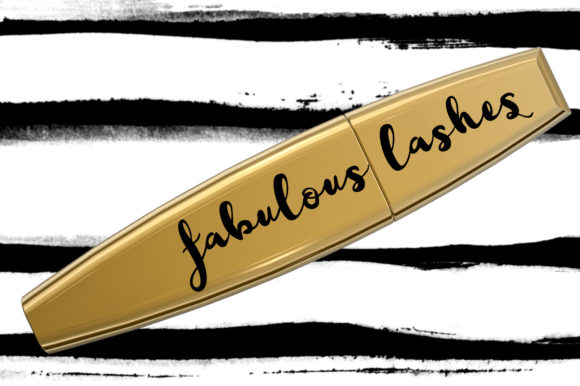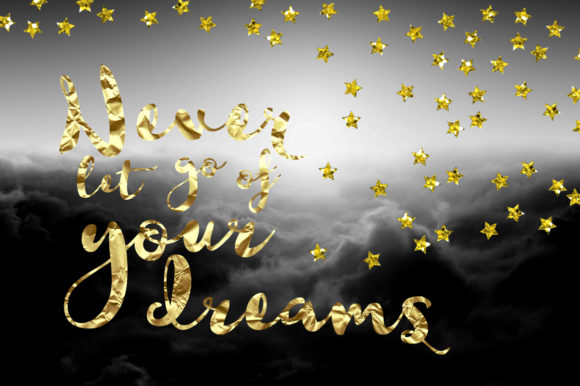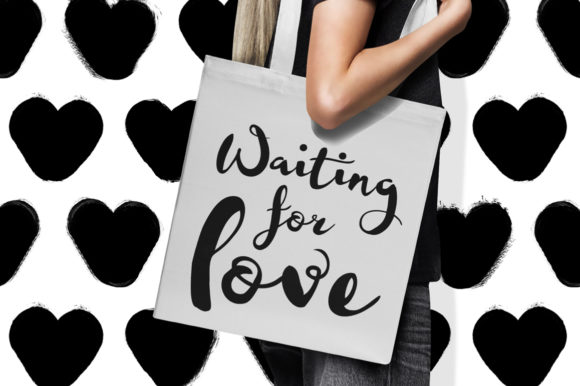
HomeScript FontsJoella Font Script Fonts Joella Font FacebookXPinterestWhatsApp Joella Font Poster 2 Joella Font Poster 3 Joella Font Poster 4 About Joella Font Joella is a bold, charming and sweet script with a unique charm. DOWNLOAD NOW People also explored Storyteller Font School Holidays Font Good Sleep Font Benedicta Font Feris Script Respalo Font Monogram Digitech Font Emelynd Font Wildflowers Font 320 0 TagsJoella Font Previous articlePink Gladiolus FontNext articleCaitlin Script Font LEAVE A REPLY Cancel reply Comment: Please enter your comment! Name:* Please enter your name here Email:* You have entered an incorrect email address! Please enter your email address here Website: Save my name, email, and website in this browser for the next time I comment. Personal Use Free Antaro Personal Use Free Read more about this font Kinda Sweet Personal Use Free Read more about this font Amillina Monogram Personal Use Free Read more about this font Malinda Personal Use Free Read more about this font BLOG Free vs Paid Fonts: Why Investing in Premium Fonts Is Worth It Free vs Paid Fonts: Why Premium Fonts Are Worth It in 2025 The debate of free vs paid fonts continues in the design world. While... Free Fonts Risk: Why Free Fonts Can Be Dangerous for Designers Best Fonts for YouTube Videos: Make Your Thumbnails Stand Out The 10 Best Handwriting Fonts to Add Personality to Your Designs